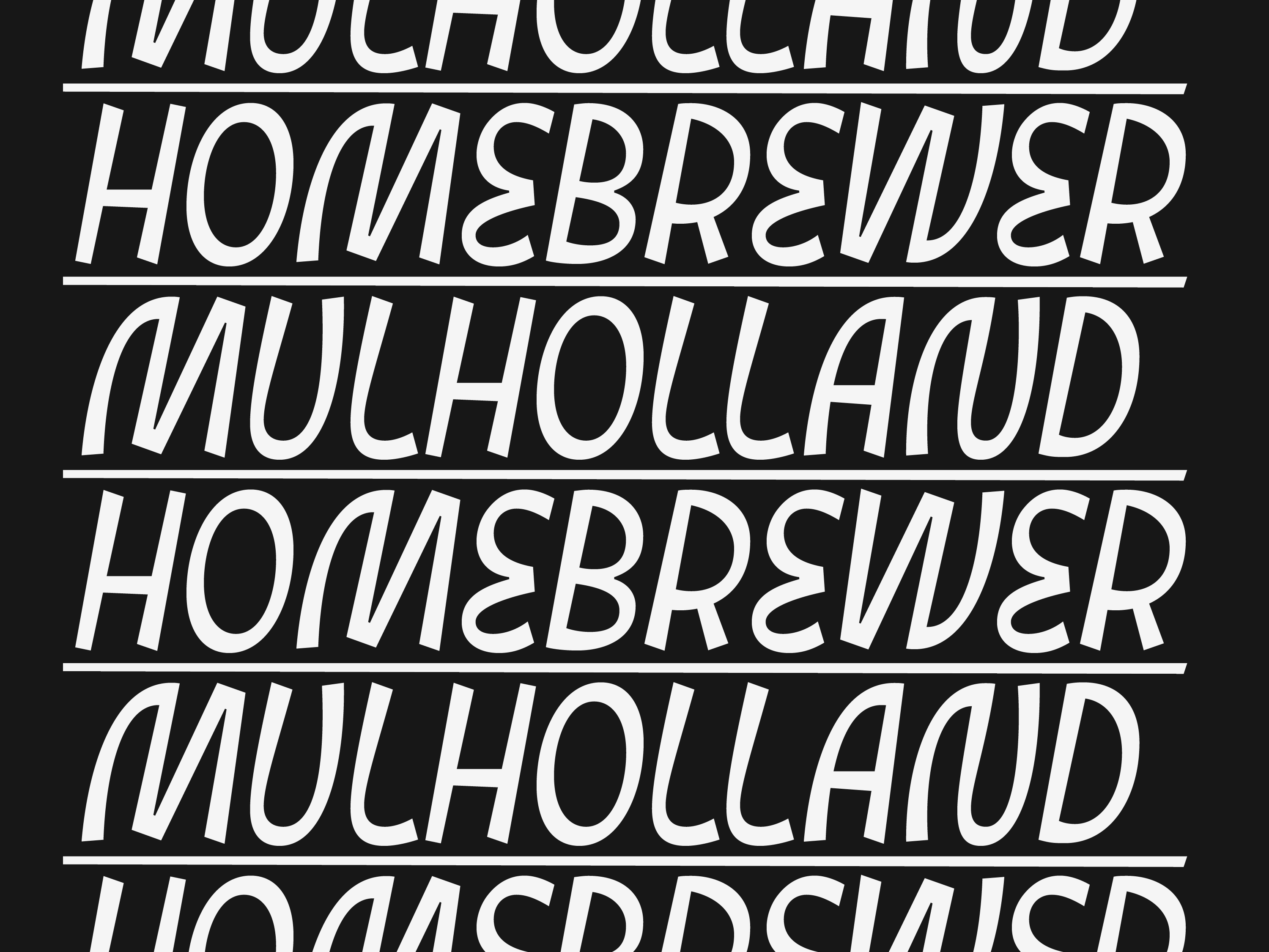
type process — display font design
a slanted display type, with unorthodox anatomy, a dynamic and rhythmic structure, movement expression, and dexterous personality. ☻ → typography in progress and imagery design by Julia Martinez Diana